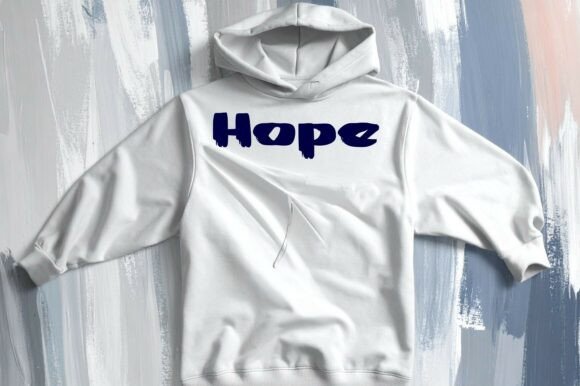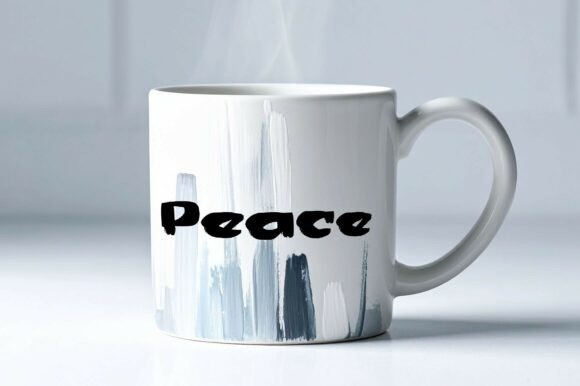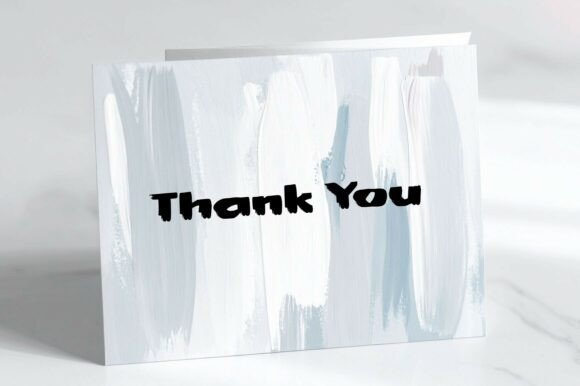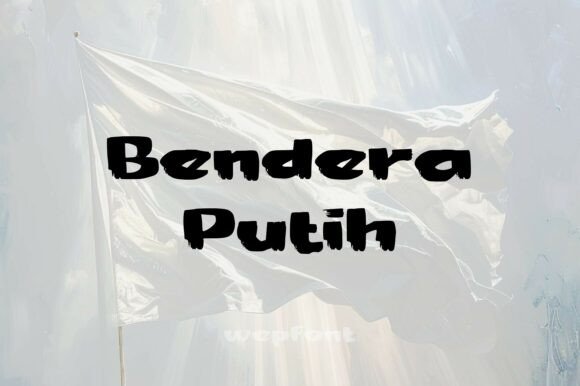
Unveiling Bendera Putih Font: A Delightful Sans-Serif Marvel
In the realm of typography, few fonts manage to strike a balance between whimsy and sophistication as effortlessly as Bendera Putih. This warm and bold sans-serif font has captured the hearts of designers and crafters alike with its unique blend of soft outlines, compelling character, and understated allure. Whether you’re looking to create engaging headers, body text, or add a playful touch to your brand aesthetics, Bendera Putih is the perfect companion for your design journey.
The Birth of a Friendly Ambiance
Bendera Putih’s design philosophy revolves around creating a friendly and welcoming ambiance. Its soft outlines and gentle curves evoke a sense of approachability, making it an excellent choice for projects that require a warm and inviting tone. From children’s literature to fashion staples, Bendera Putih’s adaptable personality shines in a wide array of applications, effortlessly bridging the gap between playful and professional.
Readability Meets Aesthetic Appeal
One of the standout features of Bendera Putih is its exceptional readability. The font’s carefully crafted characters ensure that text remains clear and legible, even at smaller font sizes. This makes it an excellent choice for body text, where clarity and comprehension are paramount. Moreover, Bendera Putih’s aesthetic appeal is undeniable, with a unique blend of modernity and playfulness that adds visual interest to any design.
Elevating Designs with Elegant Simplicity
Bendera Putih’s design is characterized by elegant simplicity, making it an excellent addition to any design toolkit. The font’s standard punctuation glyphs ensure seamless integration into various design applications, allowing you to focus on creativity rather than technicalities. With Bendera Putih, you can effortlessly elevate your designs to newfound heights, adding a touch of sophistication and whimsy to your projects.
Applications Galore
Bendera Putih’s versatility knows no bounds. This delightful font can be used in a wide range of applications, including:
- Children’s literature: Add a playful touch to storybooks, educational materials, and activity sheets.
- Brand aesthetics: Inject personality into your brand’s visual identity with Bendera Putih’s unique charm.
- Fashion staples: Use Bendera Putih to create eye-catching labels, packaging, and marketing materials.
- Digital landscapes: Enhance user experience with Bendera Putih’s clean and readable design, perfect for websites, apps, and digital publications.
What Makes Bendera Putih Special?
Bendera Putih boasts several features that make it a standout font:
- Warm and bold sans-serif design
- Soft outlines and gentle curves for a friendly ambiance
- Exceptional readability
- Standard punctuation glyphs for seamless integration
- Adaptable personality for various applications
In conclusion, Bendera Putih is a delightful font that has captured the hearts of designers and crafters alike. Its unique blend of whimsy, sophistication, and readability makes it an excellent choice for a wide range of applications. Whether you’re looking to create engaging headers, body text, or add a playful touch to your brand aesthetics, Bendera Putih is the perfect companion for your design journey. Experience the elegant simplicity of Bendera Putih and let it elevate your designs to newfound heights.
Get Ready to Unlock Bendera Putih’s Full Potential
With Bendera Putih, the possibilities are endless. Whether you’re a seasoned designer or a crafty enthusiast, this delightful font is sure to inspire creativity and bring a fresh perspective to your projects. So why wait? Unlock Bendera Putih’s full potential and discover a world of design possibilities that will leave you and your audience smiling.